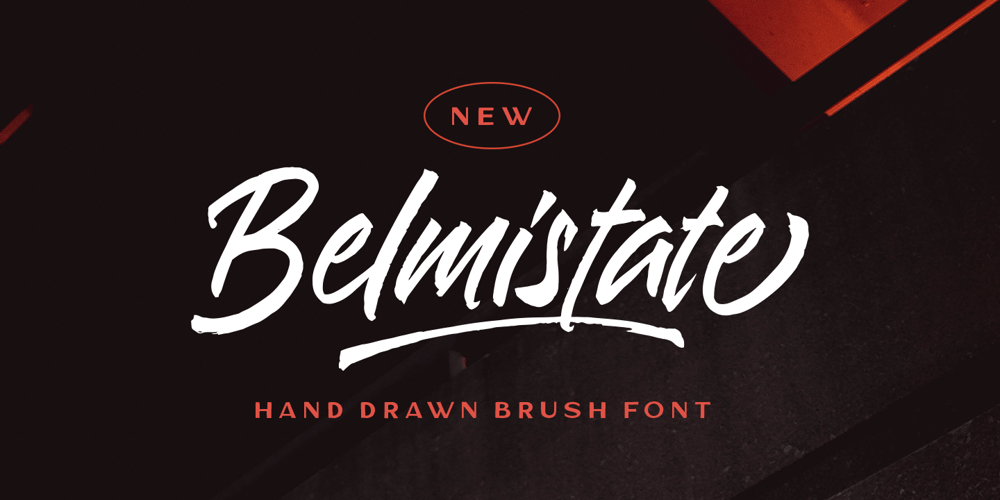
Belmistate
Belmistate font
Belmistate Font Family was designed by Hendry Juanda and published by Letterhend. Belmistate contains 1 styles and family package options. Introducing, Belmistate – a hand drawn brush script which is purposely made for headline, display or logotype, and signature. This type of font perfectly made to be applied especially in logo, and the other various formal forms such as invitations, labels, logos, magazines, books, greeting / wedding cards, packaging, fashion, make up, stationery, novels, labels or any type of advertising purpose.Features : uppercase & lowercase numbers and punctuation multilingual alternates & ligatures PUA encoded We highly recommend using a program that supports OpenType features and Glyphs panels like many of Adobe apps and Corel Draw, so you can see and access all Glyph variations.